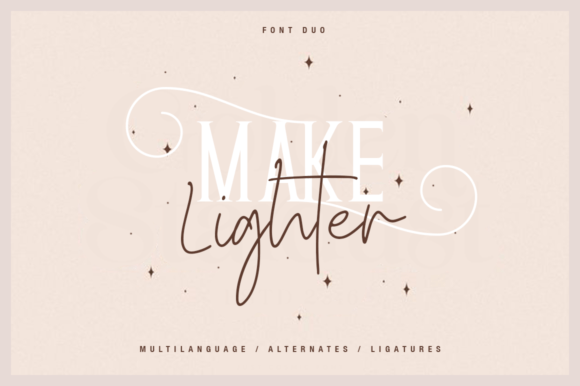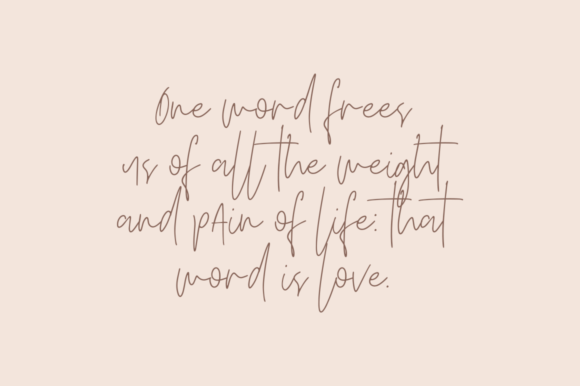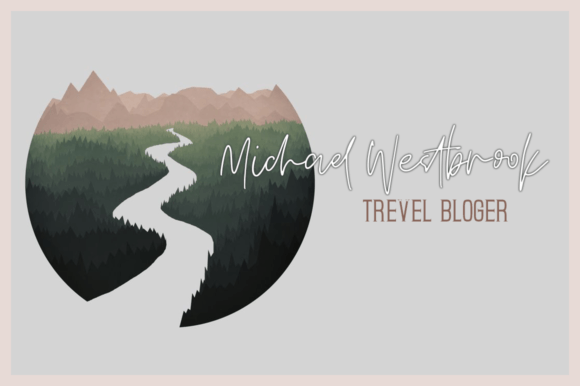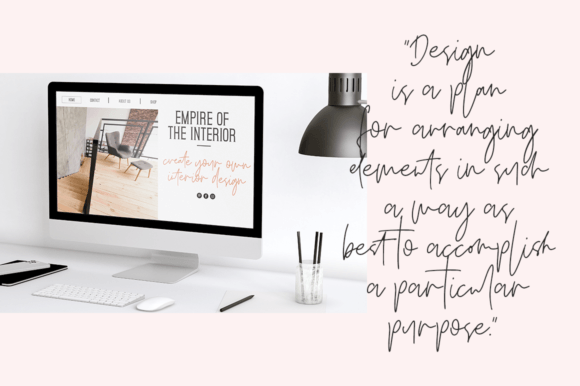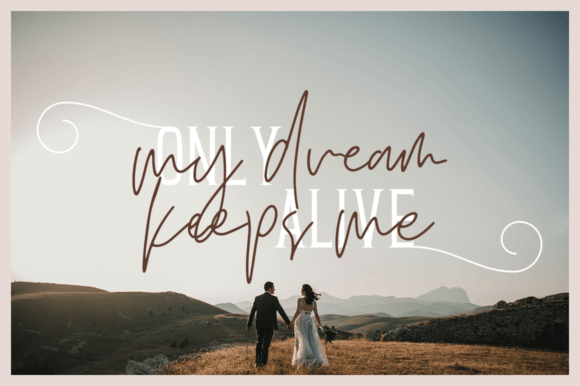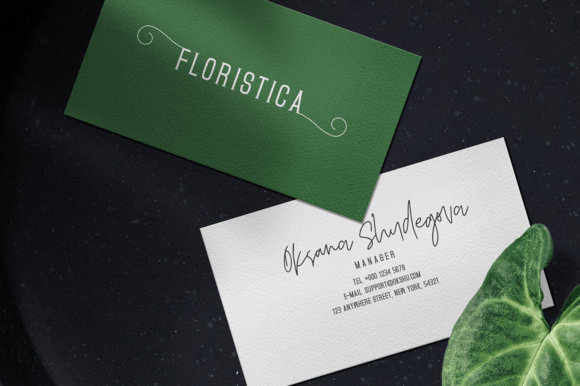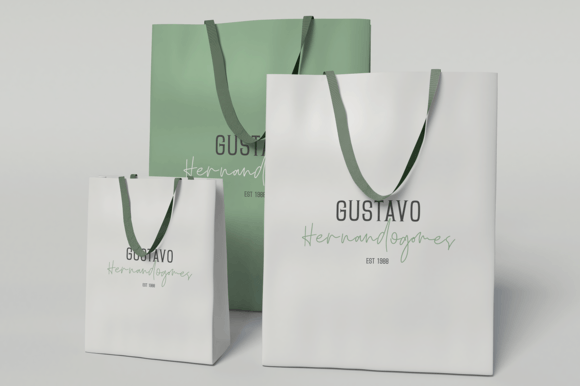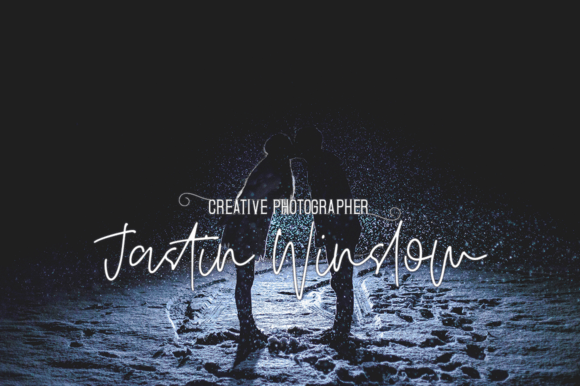
Make Lighter Duo Font
Make Lighter Duo Font Download – Script & Sans Serif
The Make Lighter Duo Font download is a stunning font duo that combines the elegance of a script with the clarity of a sans serif. This pairing gives designers the perfect balance between style and readability, making it an essential addition to any font library. Whether for branding, invitations, or product packaging, Make Lighter elevates every creative project with modern sophistication.
A Perfectly Balanced Font Duo
The Make Lighter Duo Font download offers two distinct yet complementary styles in one package. The flowing script adds elegance and creativity, while the sans serif provides simplicity and balance. Together, they create a harmonious blend that works for both formal and casual designs.
Ideal for Branding and Logos
Strong branding depends on typography, and the Make Lighter Duo Font download is an excellent choice for logos, product labels, and promotional designs. Use the script style for stylish highlights and the sans serif for clear messaging. This duo ensures your brand feels polished and professional.
Great for Invitations and Stationery
The Make Lighter Duo Font download shines in wedding invitations, greeting cards, and stationery. Its elegant script brings romance, while the sans serif keeps the design clean and easy to read. This makes it an excellent option for both festive and formal events.
From posters and banners to social media content and digital artwork, the Make Lighter Duo Font download adapts beautifully to multiple design needs. Its versatility ensures that you can use it across different platforms without losing visual harmony.
Why Choose Make Lighter Duo Font?
Among font duos, the Make Lighter Duo Font download stands out thanks to its stunning balance of script elegance and sans serif clarity. It gives designers flexibility without compromising on aesthetics, making it a valuable tool for both professional and personal use.
Add Style and Clarity to Your Designs
Typography influences how your audience perceives your work, and the Make Lighter DuoFont download ensures your designs feel stylish, modern, and professional. Whether for branding, invitations, or packaging, this font duo helps your creations shine with elegance.